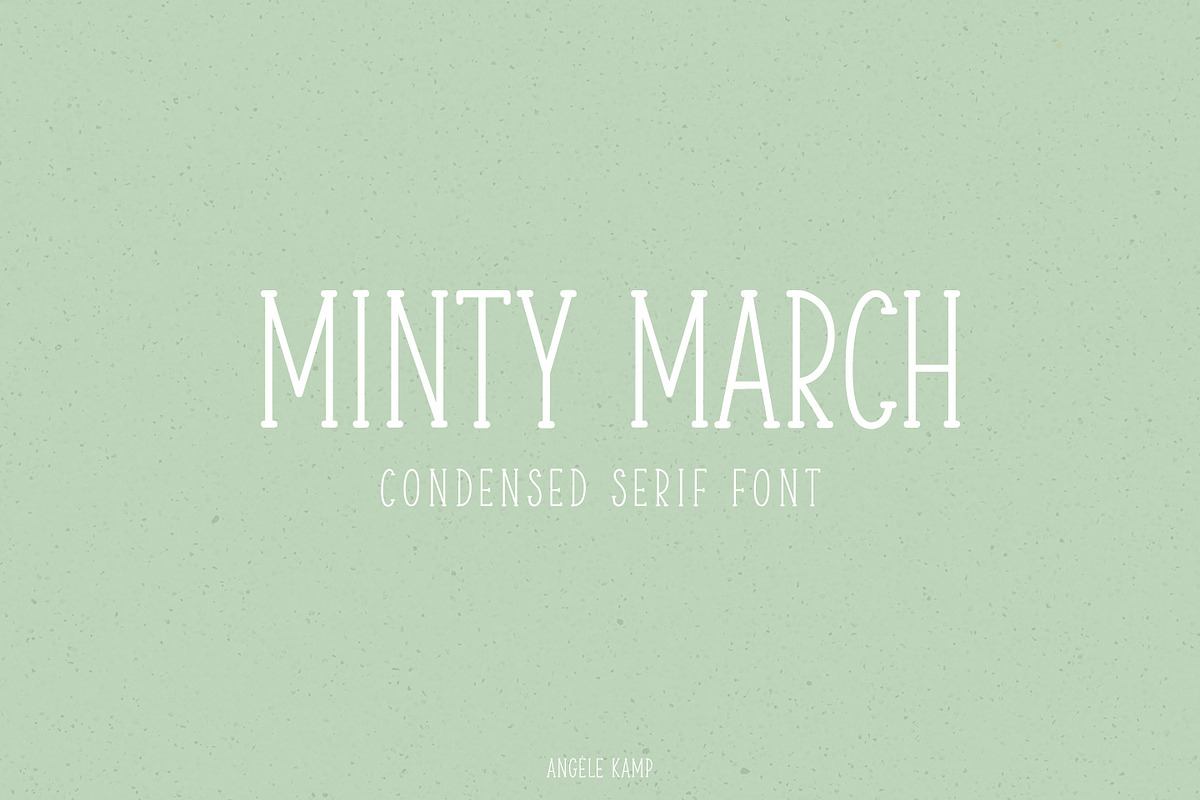
Minty March condensed serif font Free Download
Minty March Condensed Serif Font Free Download
Chic, classy, and full of charm, Minty March Condensed Serif Font Free Download is a stylish typeface that blends traditional serif elegance with a modern, space-saving condensed design. Perfect for editorial layouts, branding, fashion lookbooks, and minimalist packaging, this font adds a sophisticated flair to any creative project.
With its tall letterforms and fine detailing, Minty March offers excellent readability while maintaining a unique visual identity. Its refined design makes it ideal for both headlines and subheadings, especially when you want to make a statement without taking up too much space.